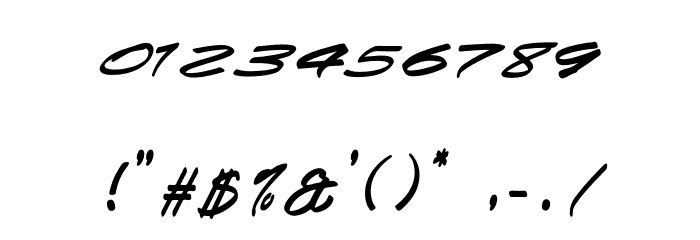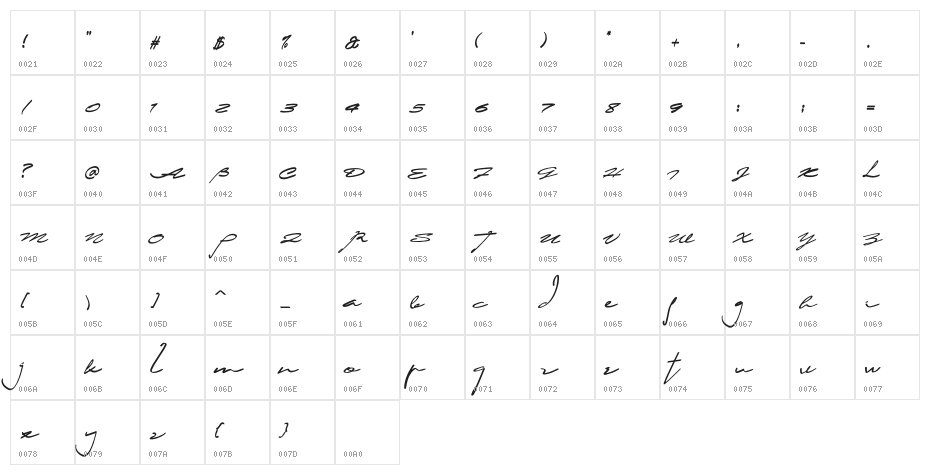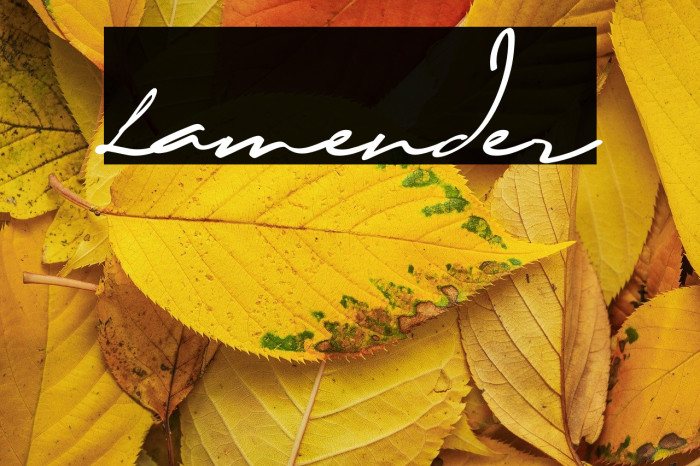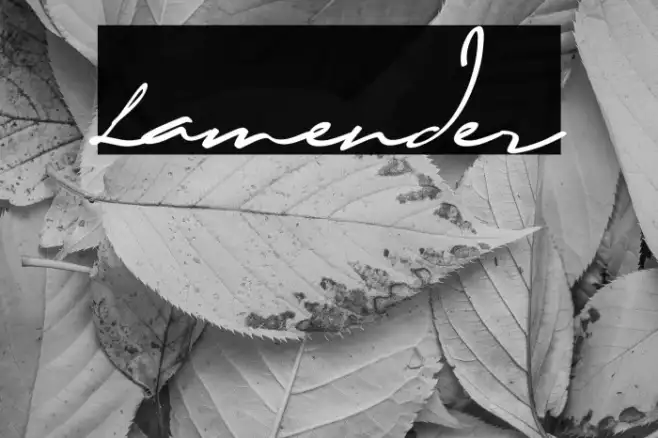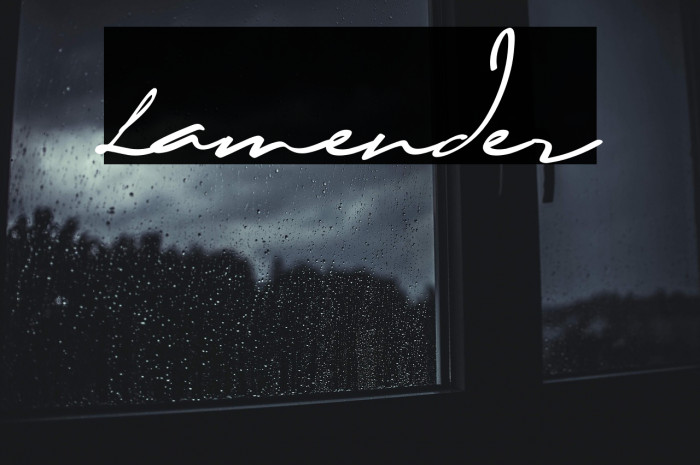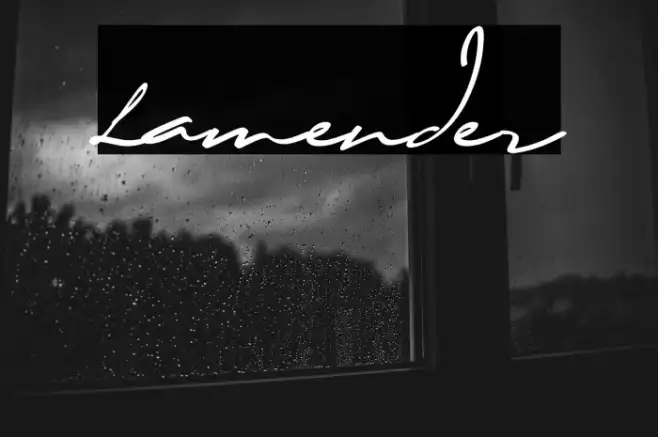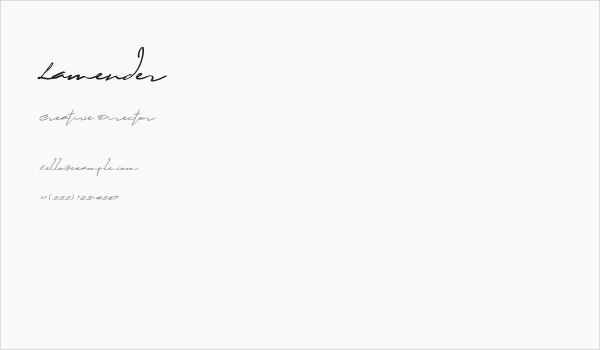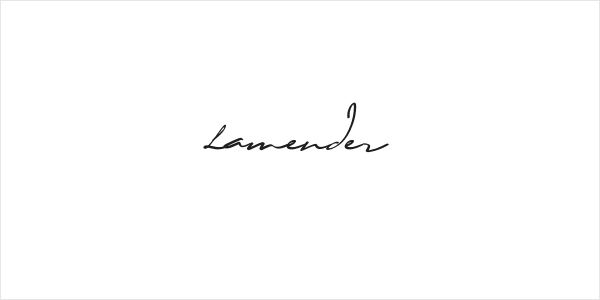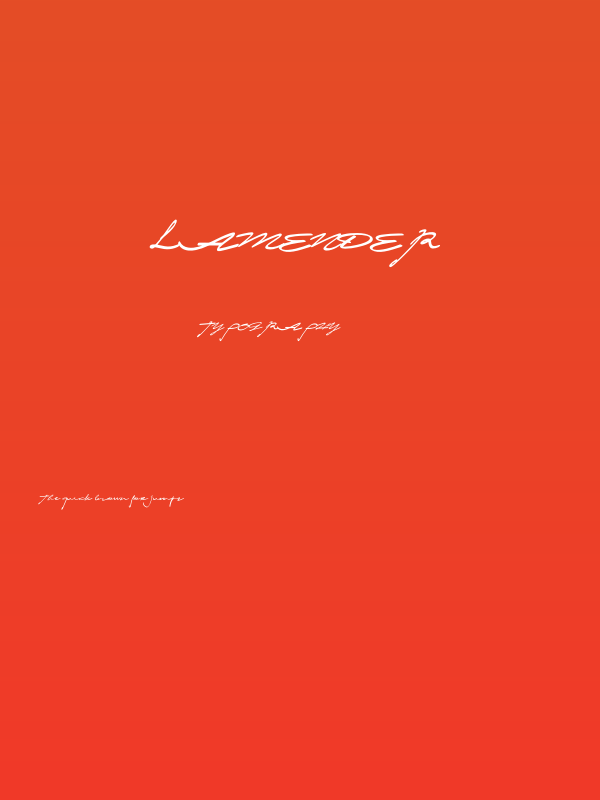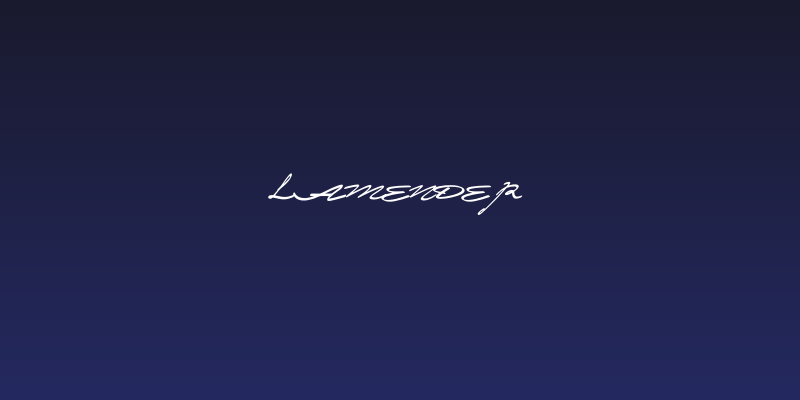
Lamender Font
Lamender Description
This font exudes a sense of elegance and fluidity, characterized by its cursive, handwritten style. The letters are connected in a flowing manner, creating a seamless and continuous script that mimics natural handwriting. The strokes vary in thickness, adding a dynamic and lively feel to the text. The uppercase letters are slightly more ornate, with additional flourishes that enhance their decorative appeal. The lowercase letters maintain a consistent style, ensuring readability while preserving the artistic flair. Numbers and special characters are integrated seamlessly, maintaining the overall aesthetic. This font is ideal for projects that require a personal touch or a sophisticated, artistic look.
| Overall Style | Elegant, Artistic |
| Proposed Projects | Ideal for wedding invitations, personal letters, branding for luxury products, and artistic projects requiring a personal touch. |